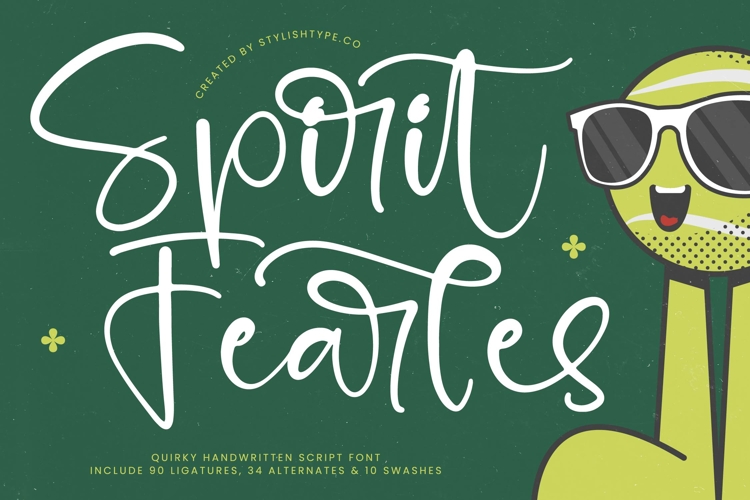
Spirit Fearles - Quirky Handwritten Script Font
Spirit Fearles - Quirky Handwritten Script Font. This typeface captures the unmistakable charm and spontaneity of authentic hand-lettering, featuring bold strokes and exuberantly flowing curves that demand attention. It is the perfect choice for projects needing a playful yet professional aesthetic, offering instant visual impact and an inviting, modern appeal that differentiates your brand from the competition.